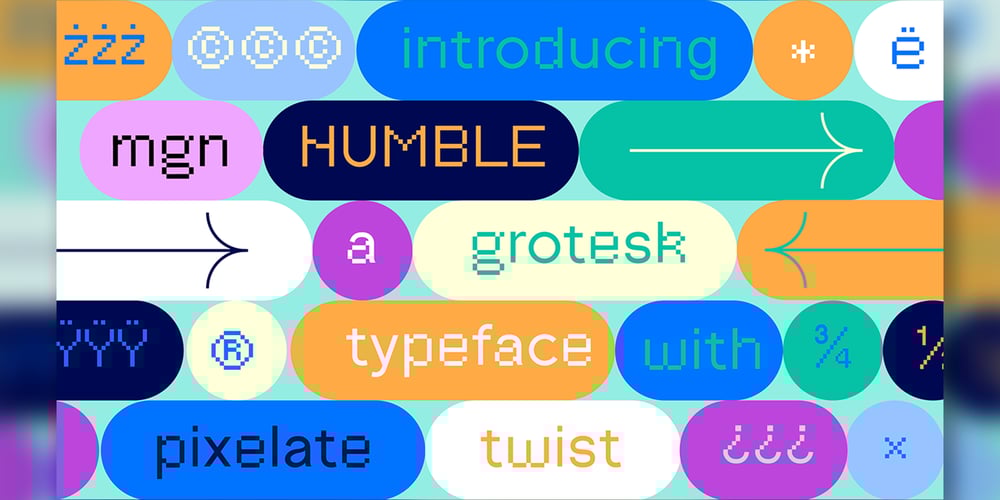
MGN Humble
MGN Humble font
MGN Humble Font Family was designed by Roland Hüse, Muhamad Masyhuri and published by Morgana Studio. MGN Humble contains 1 styles and family package options. MGN Humble is a sans-serif type that provides room for users to express their experimental and playful side. The pixelated strokes engage venturously with the need to communicate excitement; a perfect set for clothing, gaming, technology, and experimental poster use. Currently available in a beta version and to be developed further.